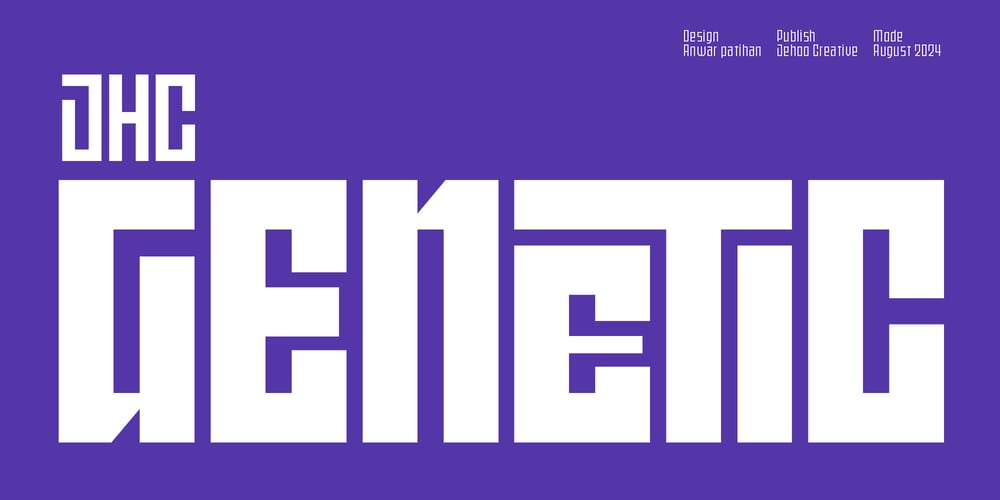
JHC Genetic
JHC Genetic font
JHC Genetic Font Family was designed by Anwar Patihan and published by Jehoo Creative. JHC Genetic contains 16 styles and family package options. JHC Genetic is a sleek, modern typeface characterized by its Jcompact rectangular shapes and consistent flat angles. Its design emphasizes clarity and precision, making it an excellent choice for both digital and print applications. The uniformity in its angular forms lends a cohesive and futuristic feel, ideal for technology, science fiction, and cutting-edge branding projects.Additionally, JHC Genetic features a distinctive discretionary ligature “T” on each letter, enhancing its compactness and overall uniformity. This design element contributes to its unique, streamlined appearance. The typeface is available in 16 fonts, ranging from Light to Extrablack, each with matching italics, offering a versatile range of weights and styles for diverse typographic needs.